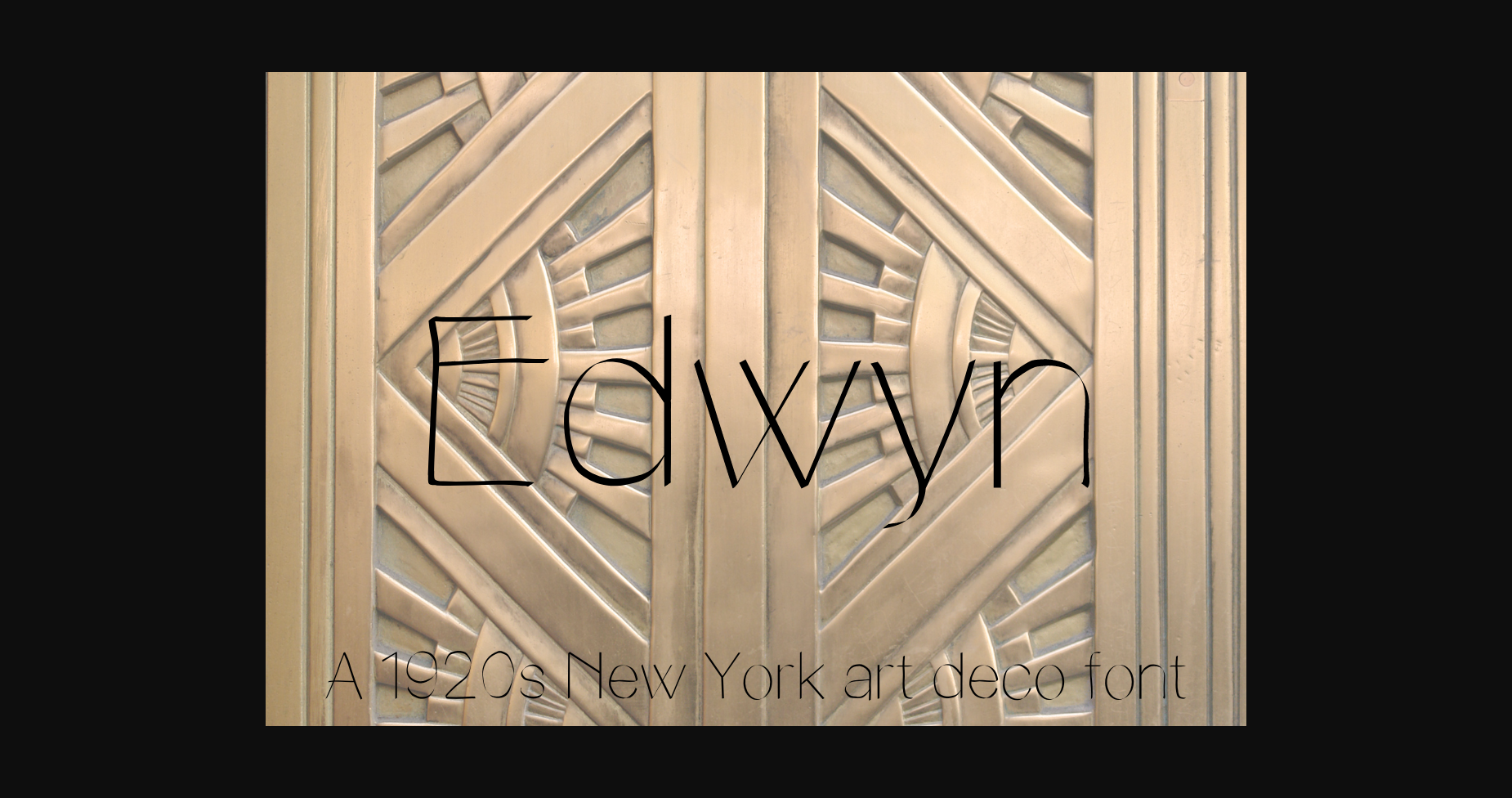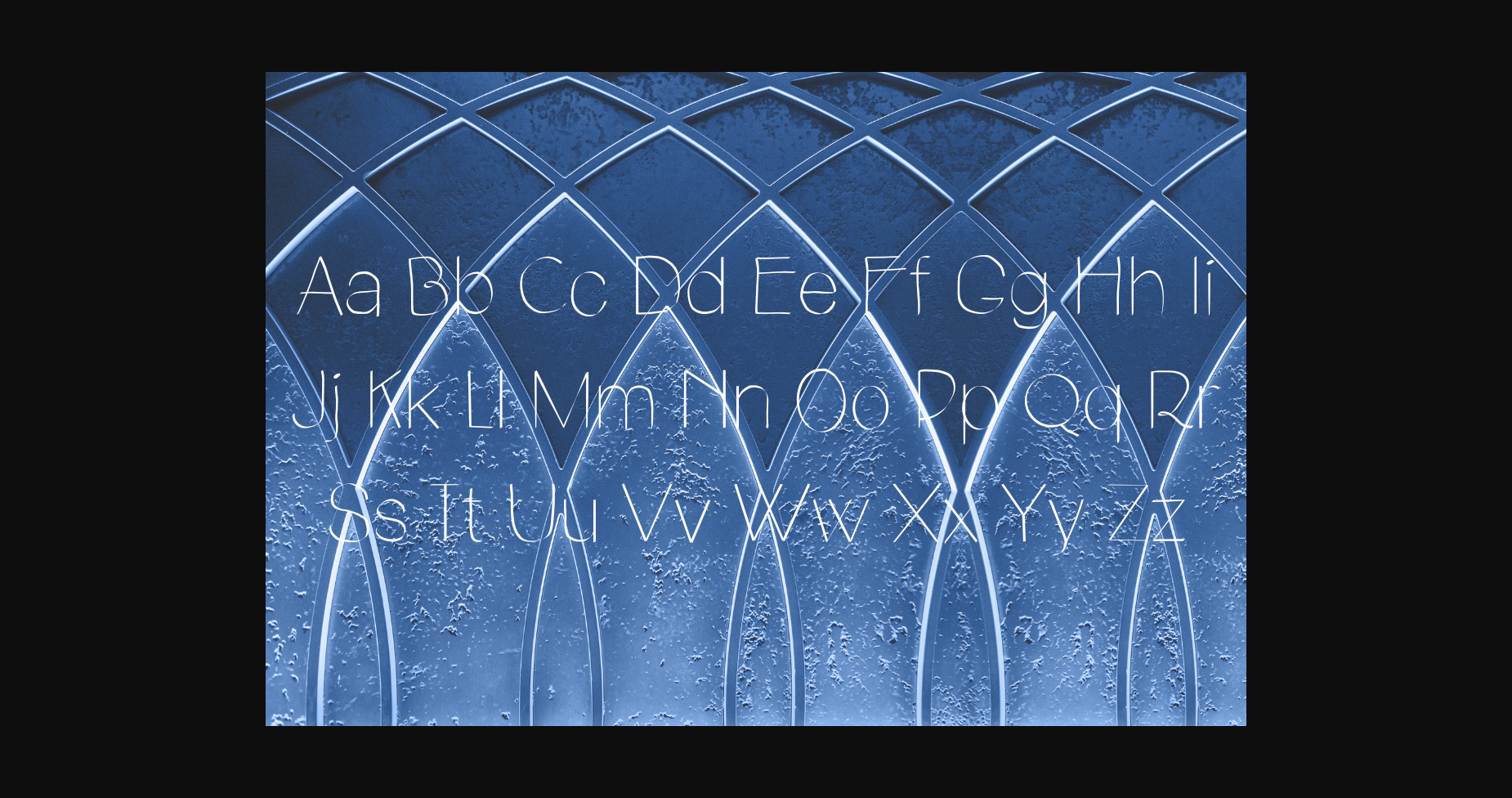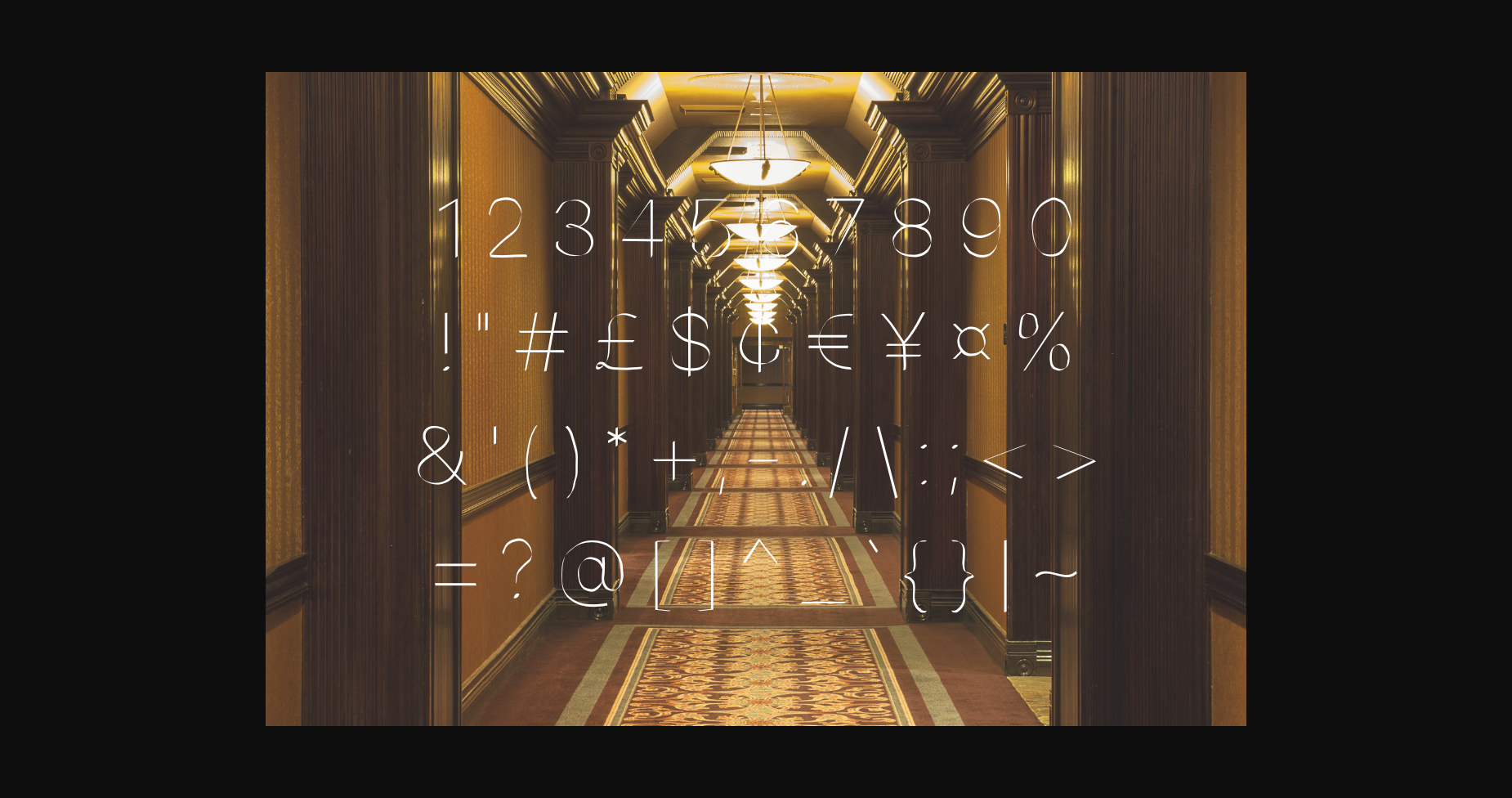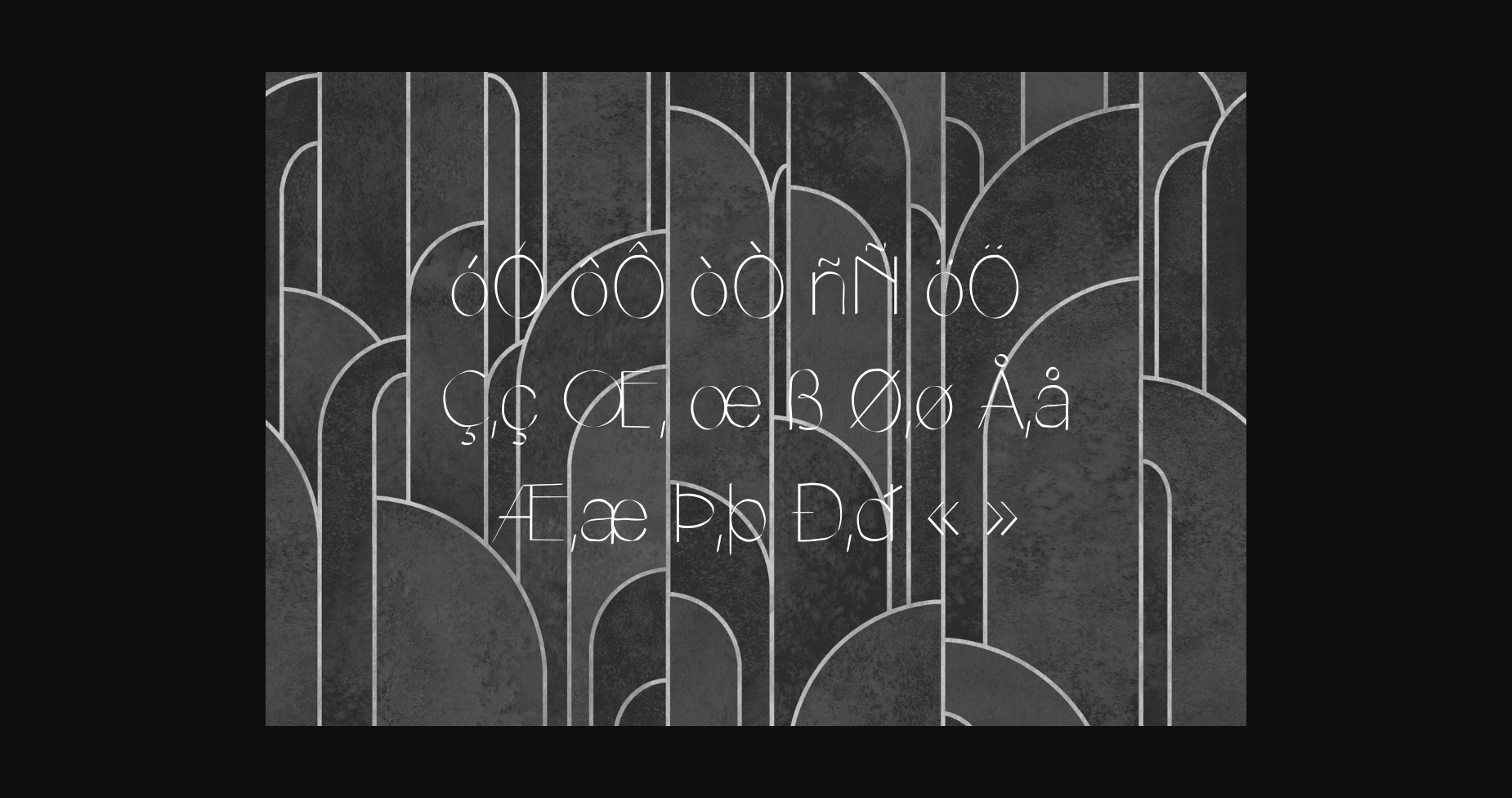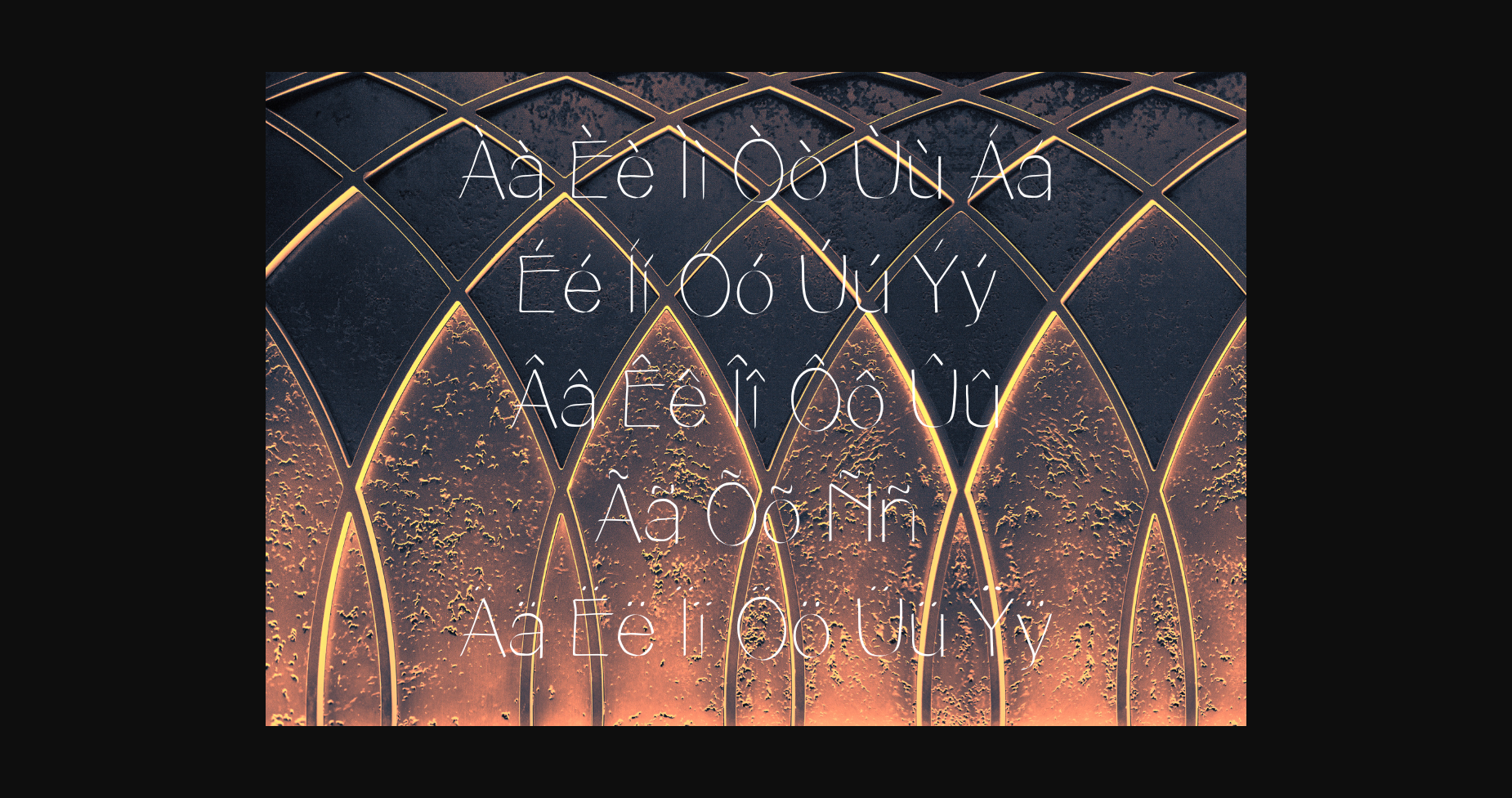
Edwyn Font
About Edwyn Font
Edwyn is a New York 1920s art deco-inspired Sans Serif font. A thin letter style perfect for those modern projects with a vintage feel. Glyphs come in uppercase, lowercase, numbers, punctuation, and all Latin characters.